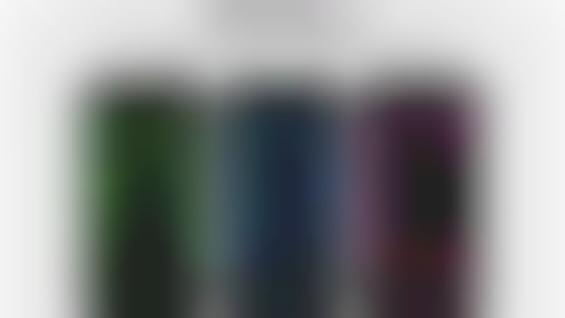
Touchphone Typography
Oriol Fernandez Tur's iPhone Font Uses 540 Apps to Form Letters
The iPhone Font project is impressive on many levels. Not only does it suggest a lot of patience and creativity, it also signals dedication and determination considering how much each of the 540 apps used must have cost.
Created by Spanish artist Oriol Fernandez Tur, the iPhone Font features 25 letters which were created using only the apps on his phone. Unfortunately the letter 'W' was left out since it does not exist in the Spanish alphabet.